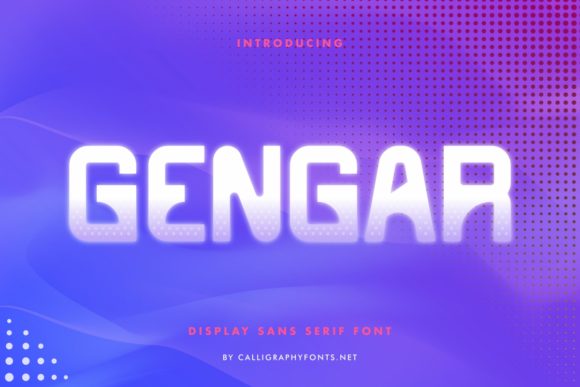
Introducing Gengar Font, the display font that will ignite your designs with its futuristic flair. This Display Sans Serif masterpiece is meticulously crafted by the renowned CalligraphyFonts, a name synonymous with typographic excellence.
Gengar Font is not just another font; it's a symphony of pixels that dance across your screen, captivating every beholder. Its unique character set exudes an aura of modernity and innovation, making it the perfect choice for designers seeking to make a bold statement.
Whether you're crafting eye-catching flyers, designing compelling headers, or creating unforgettable logos and monograms, Gengar Font has got you covered. Its versatility knows no bounds, allowing you to effortlessly elevate your designs to new heights.
Imagine your flyers soaring above the competition, their headlines emblazoned with Gengar Font's bold and futuristic allure. Picture your website headers radiating an unmatched sophistication, inviting visitors to delve deeper into your captivating content. Envision your logos standing out from the crowd, etched with Gengar Font's unique and unforgettable style.
Gengar Font is more than just a font; it's a catalyst for creativity, a tool that empowers you to unleash your design potential. So why settle for ordinary when you can embrace the extraordinary?